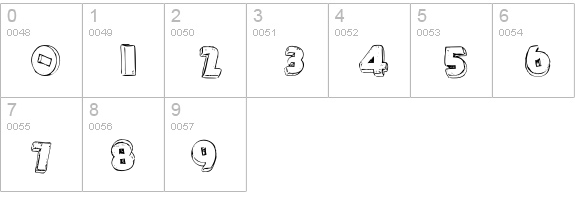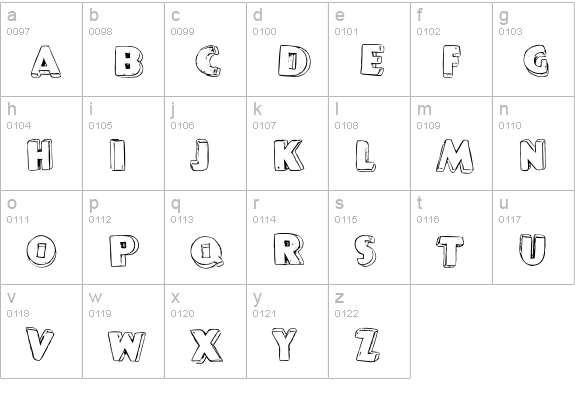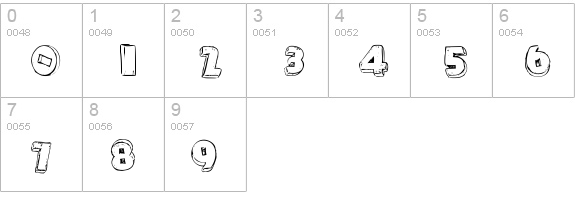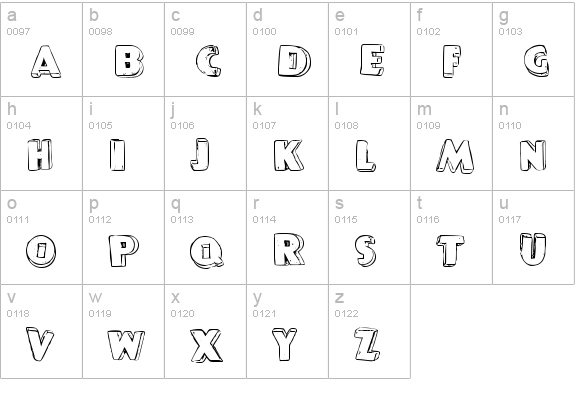
P22PopArt-ThreeD Font Details
P22PopArt-ThreeD is a captivating and vibrant font that adds an exciting three-dimensional twist to your designs. This font brings the iconic and bold style of pop art to life, with its dynamic shapes and eye-catching curves. Each letter is meticulously crafted to create a sense of depth and movement, making it perfect for grabbing attention and making a statement. The P22PopArt-ThreeD font is not only visually striking but also incredibly versatile. It can be used in a wide range of design projects, from posters and advertising campaigns to logos and branding materials. Its unique three-dimensional appearance instantly elevates any design and adds a touch of modernity and creativity. One of the best features of P22PopArt-ThreeD is that it is freely available to download at FontsMarket.com. This means that designers and creatives can easily access this font without worrying about any costs. Whether you are a professional graphic designer or a hobbyist looking to enhance your projects, this font is accessible to everyone and allows for unlimited creative possibilities. With P22PopArt-ThreeD, you can effortlessly create designs that stand out and make an impact. Its bold and artistic nature makes it ideal for expressing your creativity and adding a pop of excitement to your work. So why wait? Download P22PopArt-ThreeD today from FontsMarket.com and let your imagination run wild.